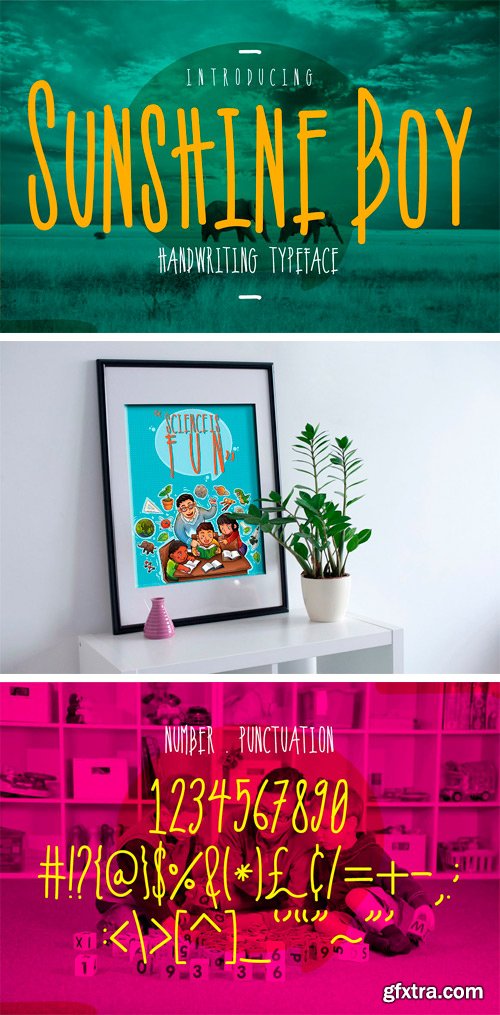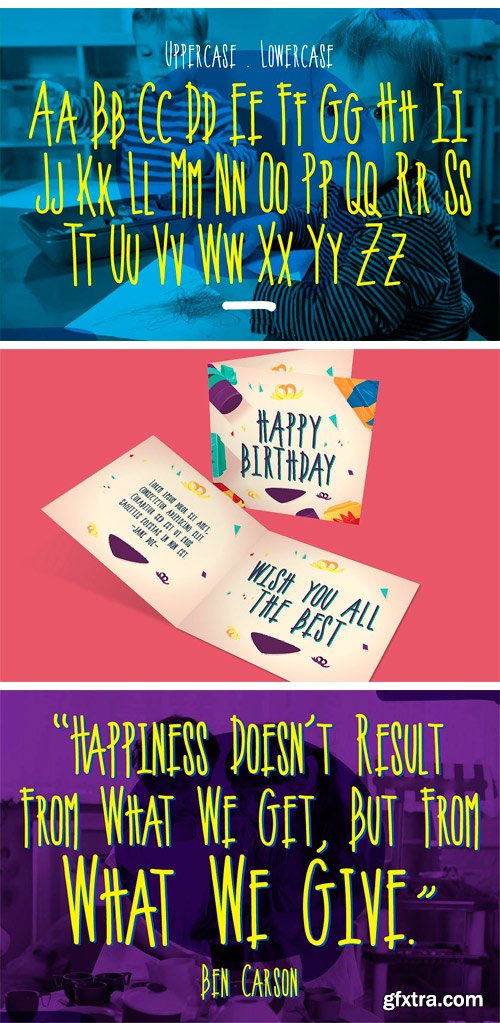
Sunshine Boy is a fun handwritten all caps, which is absolutely perfect for quotes, headline, products, logotype, packaging, and also branding. Features: Uppercase, Lowercase, Punctuation, Numeral.